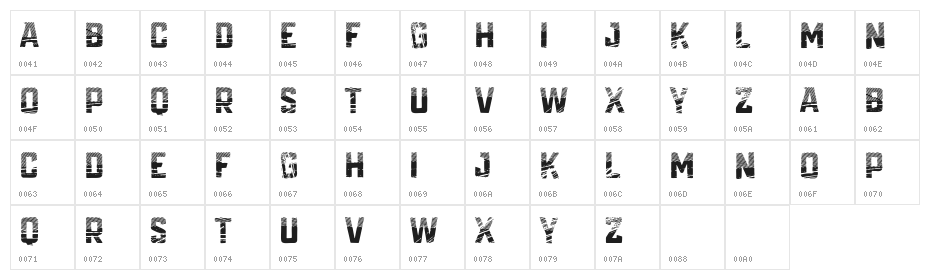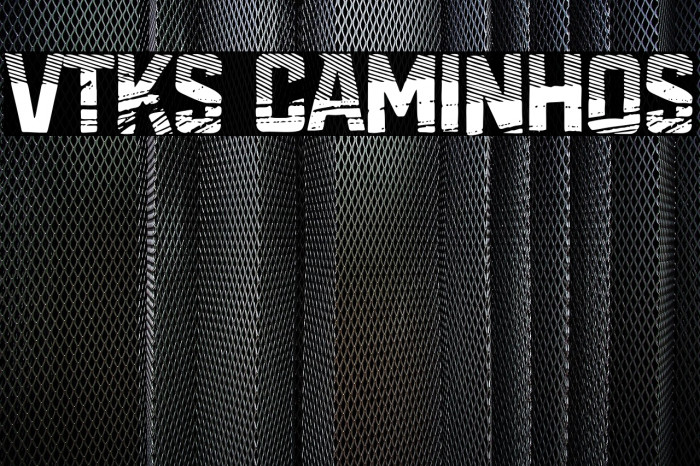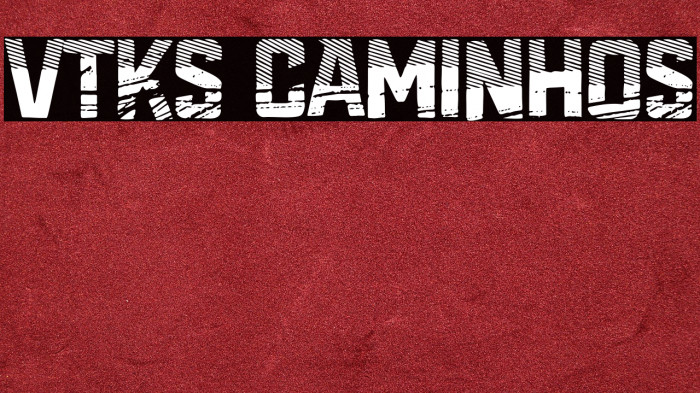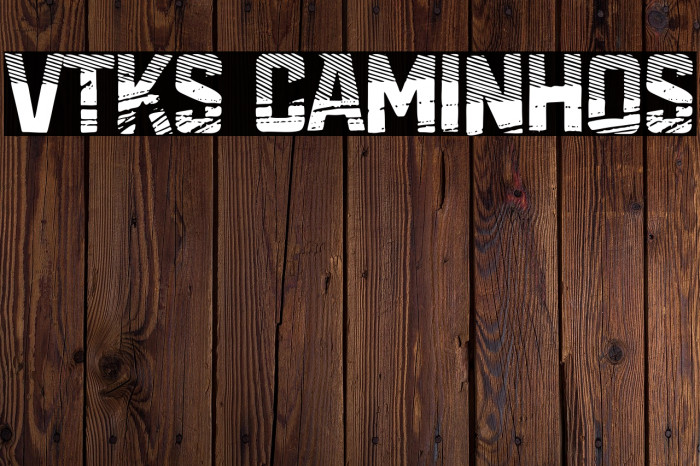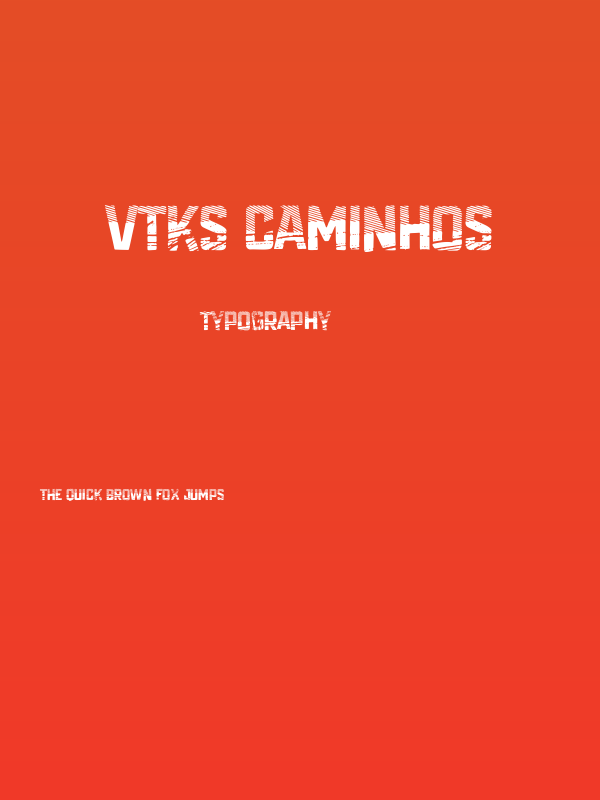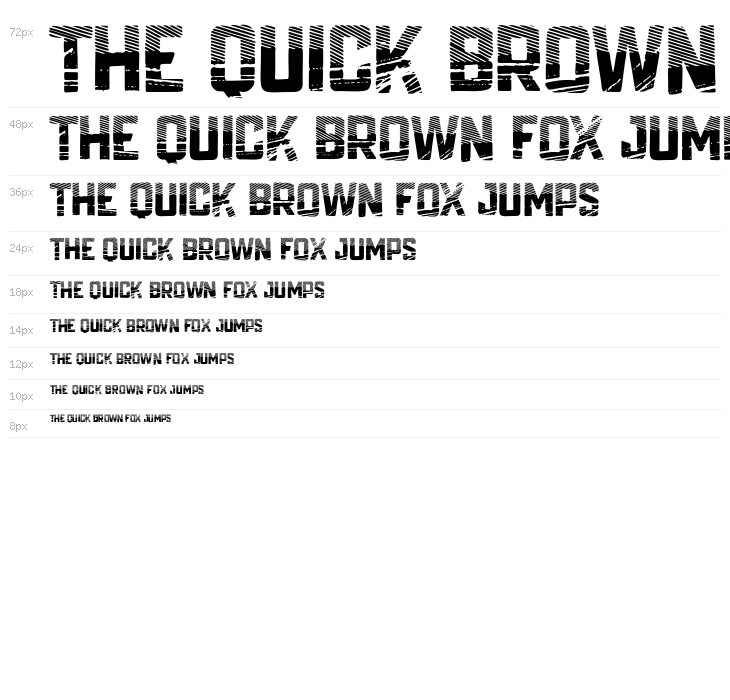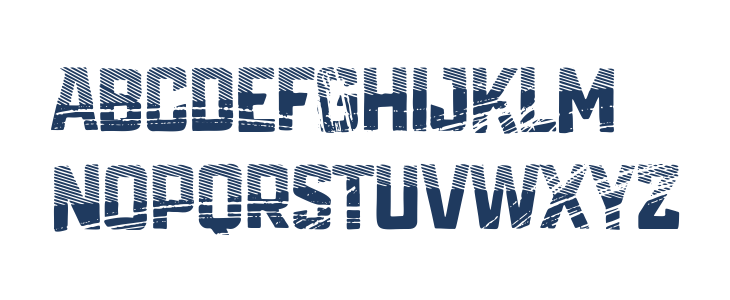
Vtks Caminhos Font
Vtks Caminhos Description
This font features a bold and distressed style, characterized by a rugged, grunge-like appearance. The letters are heavily textured with a scratched and worn effect, giving them a unique and edgy look. The uppercase letters are prominent and impactful, making them suitable for attention-grabbing designs. The overall design is reminiscent of urban street art or graffiti, with a modern twist. The font conveys a sense of rebellion and non-conformity, making it ideal for projects that require a bold statement.
| Overall Style | Modern, Grunge |
| Proposed Projects | Ideal for posters, album covers, streetwear branding, and edgy graphic designs. |